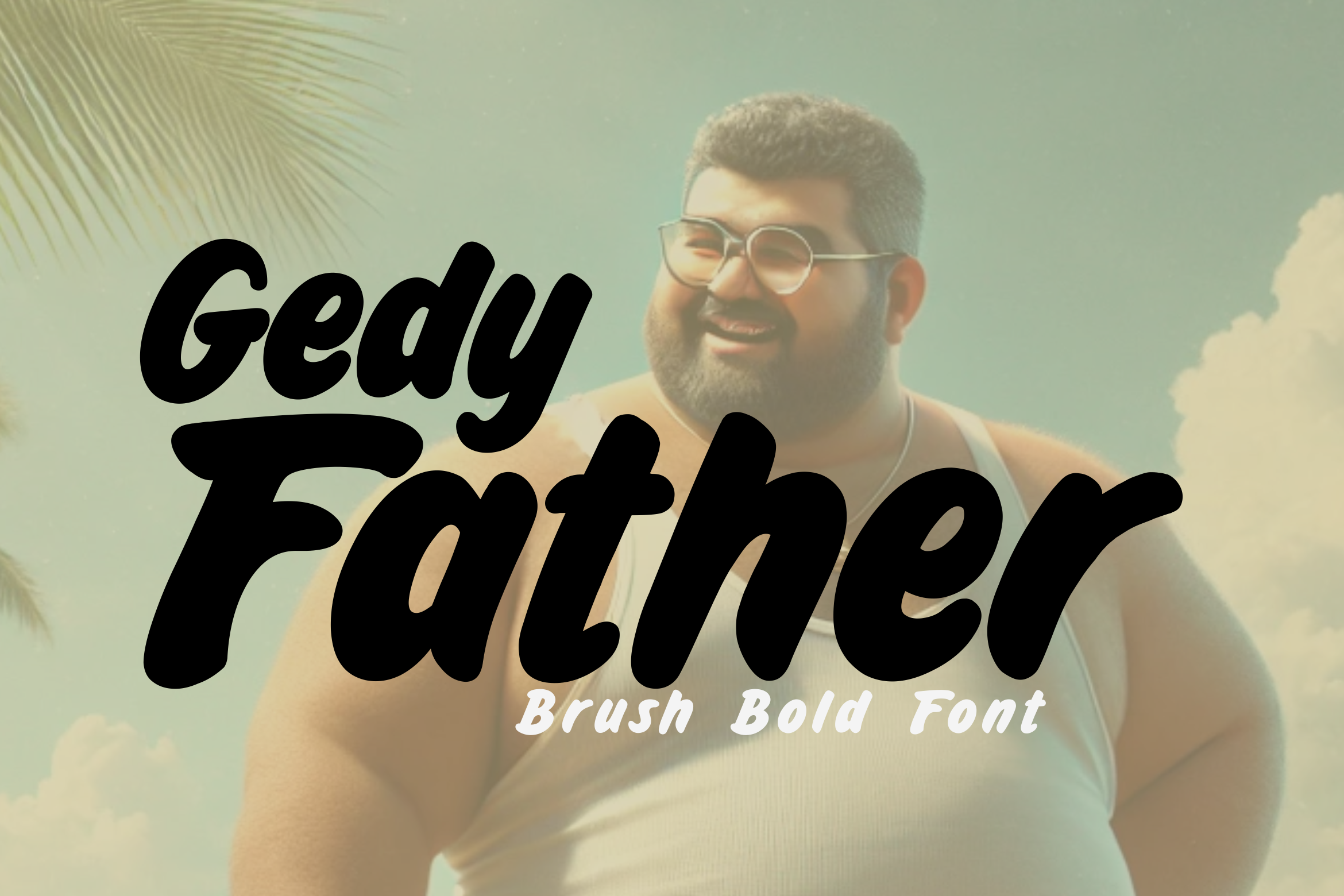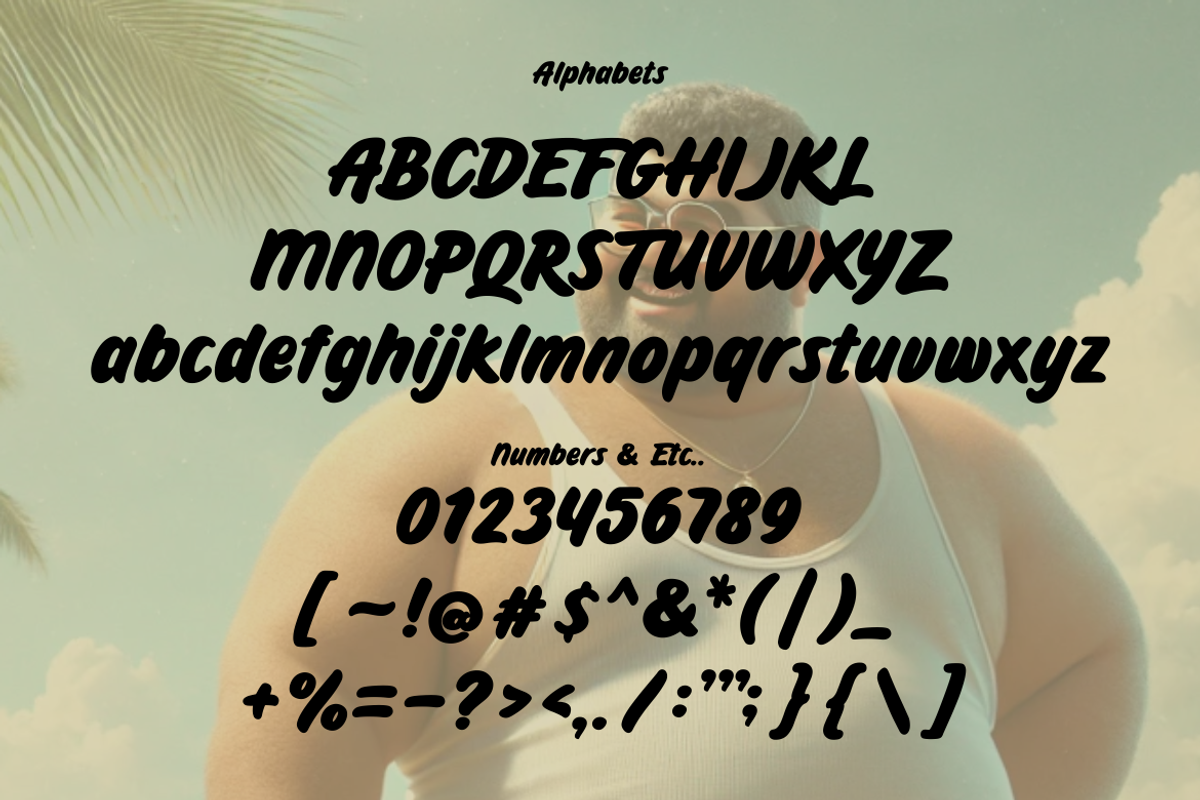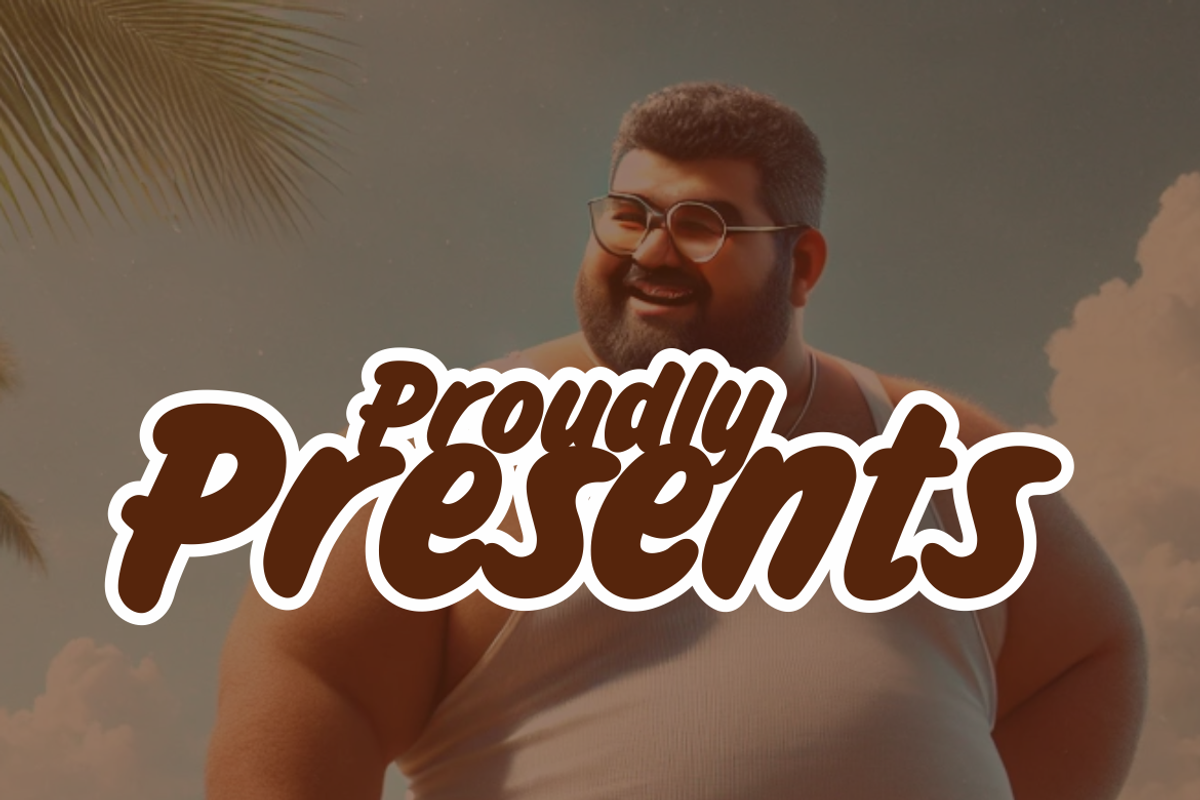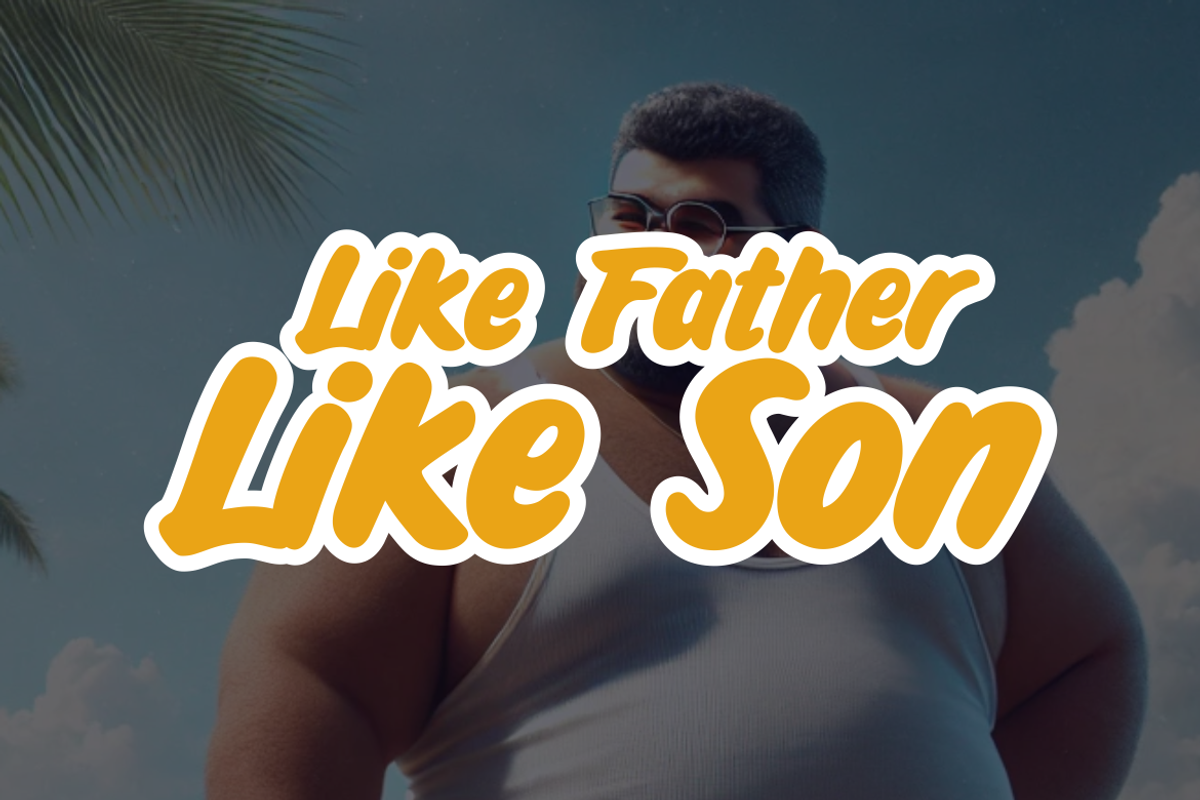
Gedy Father - Brush / Vintage Font
Gedy Father is a bold brush font with a vintage and retro feel. Perfect for logos, posters, packaging, and more, it adds strong yet warm character to any design.